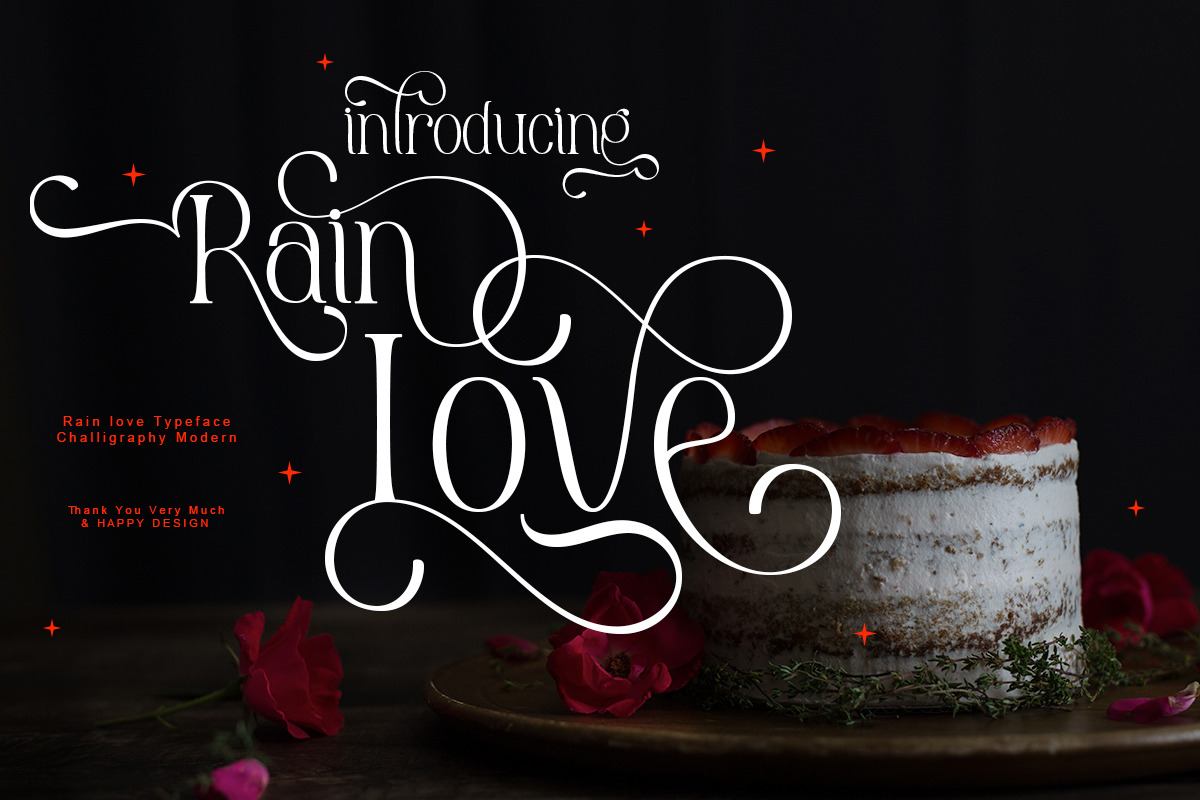
Rain Love Font Free Download is a delicate and elegant handwritten typeface designed to evoke feelings of warmth and romance. With its smooth curves, whimsical style, and natural flow, Rain Love is perfect for wedding invitations, love letters, branding, greeting cards, and any project that needs a personal and heartfelt touch.
This font combines a beautiful calligraphic feel with modern readability, making it ideal for both digital and print designs. Whether you’re crafting a romantic logo, creating a sentimental greeting card, or adding a loving touch to your social media posts, Rain Love enhances your typography with a sweet, authentic charm.